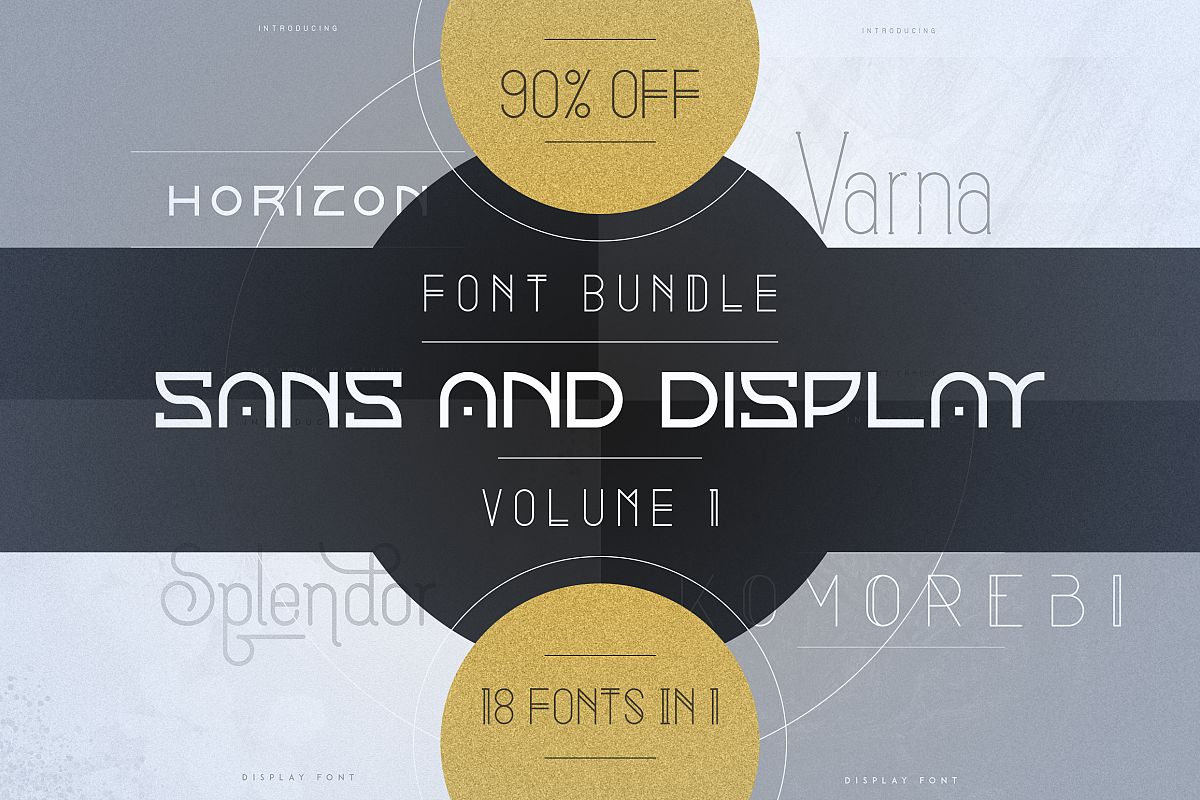
18in1 Sans and Display font bundle | Volume 1
In this collection You will find 5 handpicked bestseller font families with total of 18 fonts perfect for branding projects, home-ware designs, product packaging, wedding invitations, magazine headers - or simply as a stylish text overlay to any background image.
Fonts support multilingual and addition glyphs to enchant every lettering.
Fonts included -
Varna font family
Summer font family
Horizon font family
Komorebi display font
Splendor display font